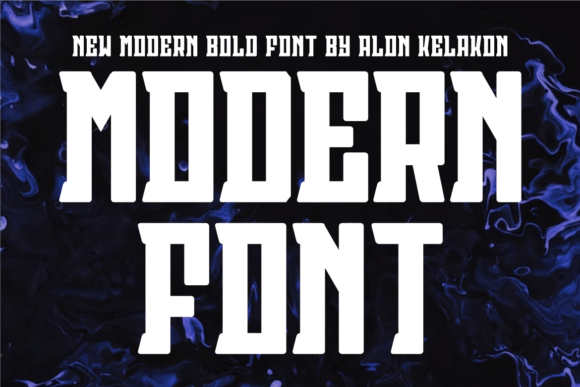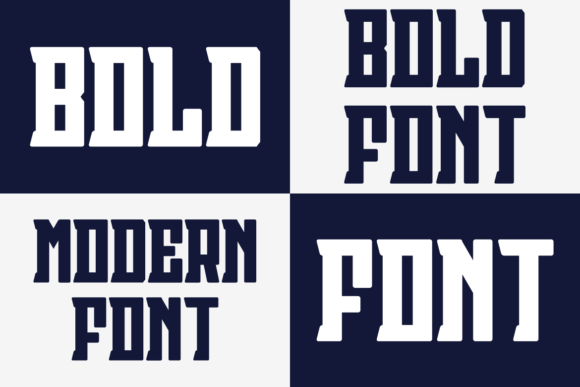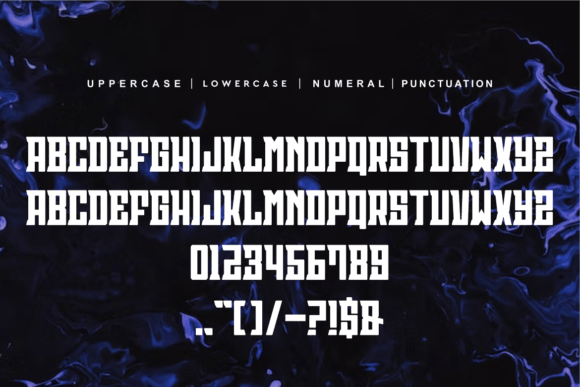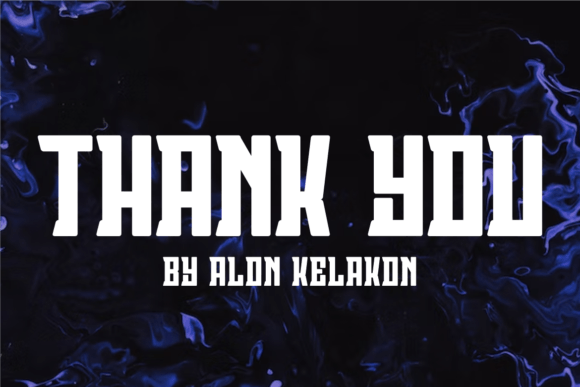
The Birth of a Bold Design Statement
Have you ever been brainstorming a new project and suddenly, a spark of creativity strikes? Maybe it’s the perfect font that brings your idea to life, or perhaps it’s the sound of a typewriter that gets the creative juices flowing. For designers, finding that perfect font can be the game-changer that elevates a project from ordinary to extraordinary. For me, it’s the Black Sporden Font that comes to mind, a powerful display font that demands attention and makes a lasting impression.
Black Sporden Font is more than just a font – it’s a statement piece that exudes confidence and credibility. Its bold and straightforward letterforms are crafted to make an impact, making it the perfect choice for titles, emblems, and corporate branding. Whether you’re a seasoned designer or just starting out, the Black Sporden Font is an invaluable asset that can take your designs to the next level.
Black Sporden Font Key Features
- Font Family: Black Sporden
- Unique Characteristics: Black Sporden features a bold, modern design with a high level of contrast, making it ideal for headings and titles
Black Sporden Font Review
I recently had the chance to work with the Black Sporden Font, and I’m excited to share my honest review.
- ✨ Unique and bold design: The Black Sporden Font has a distinctive look that’s perfect for making a statement. Its bold lines and sharp edges make it ideal for headings and titles.
- ✨ Versatility: I was pleasantly surprised by how well the font worked in a variety of contexts, from modern digital interfaces to traditional print materials.
- ✨ Strong readability: Despite its bold appearance, the Black Sporden Font is still easy to read, even at smaller font sizes.
- ⚠️ Limited font weights: While the Black Sporden Font comes in a range of styles, it’s lacking in terms of font weights. This can make it difficult to create a cohesive look across different elements.
- ⚠️ Not ideal for body text: While the font works well for headings and titles, it’s not the best choice for body text. It can be a bit overwhelming to read in large quantities.
The Black Sporden Font is a solid choice for designers looking to add some edge to their projects. Its unique design and versatility make it a great option for a wide range of applications. However, its limitations in terms of font weights and readability make it less suitable for certain use cases.
Tips for Getting the Most Out of Black Sporden Font
1. Use Black Sporden Font for headings and titles to create a bold and striking visual effect.
2. Combine Black Sporden Font with other fonts to create a unique and modern typography style.
3. Experiment with different font sizes and styles to add depth and visual interest to your design.
Alternatives to Black Sporden Font
1. Rockwell Bold
Rockwell Bold is a serif font known for its strong and sturdy appearance. It is ideal for use in headings and titles, particularly in formal and professional contexts.
Compared to Black Sporden Font, Rockwell Bold has a more traditional and classic feel. While Black Sporden Font has a more modern and edgy look, Rockwell Bold is better suited for designs that require a sense of sophistication and elegance.
2. Akkurat Bold
Akkurat Bold is a sans-serif font that is highly legible and versatile. It is suitable for use in a wide range of applications, from body text to headings and titles.
Akkurat Bold has a more streamlined and modern appearance compared to Black Sporden Font. While Black Sporden Font has a more aggressive and edgy look, Akkurat Bold is better suited for designs that require a sense of simplicity and minimalism.